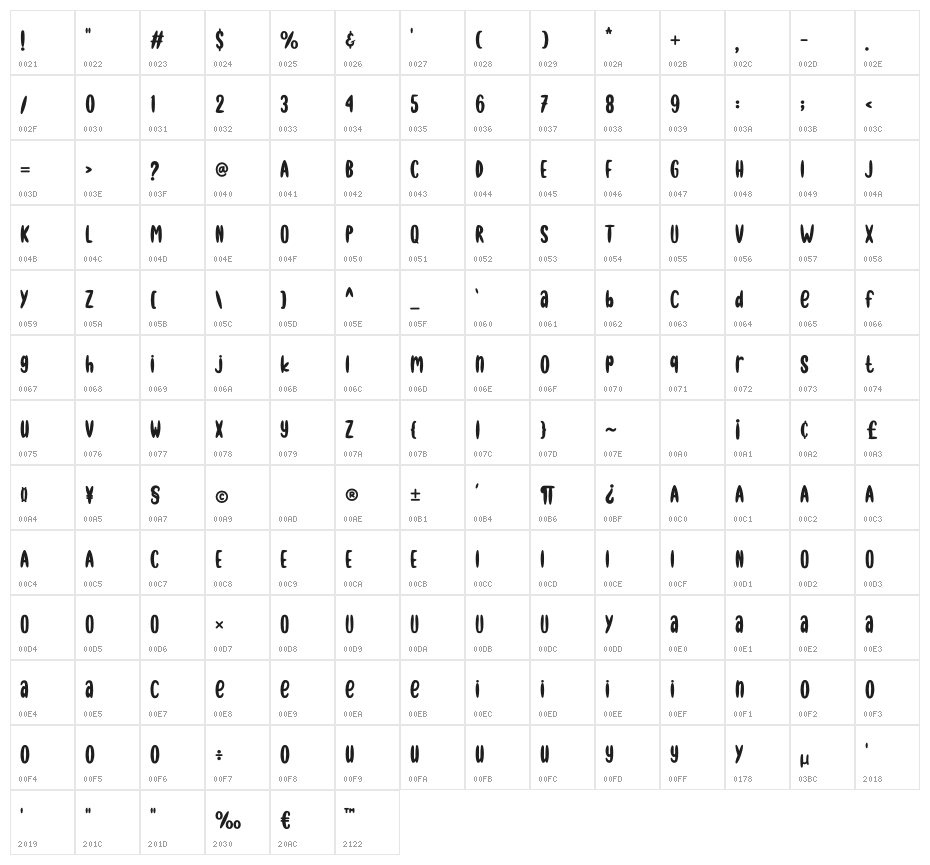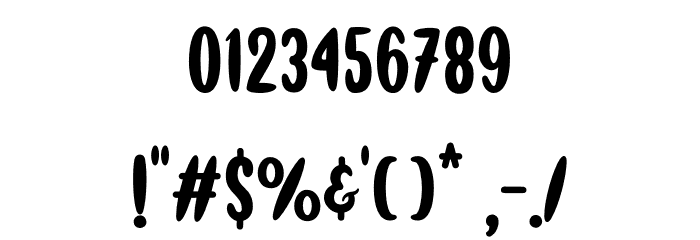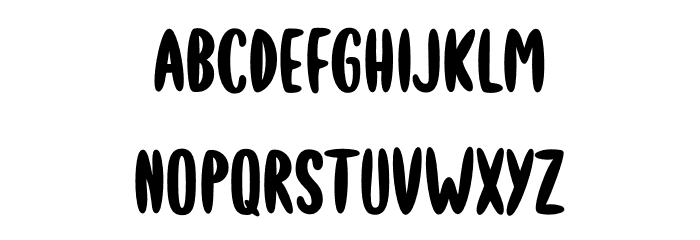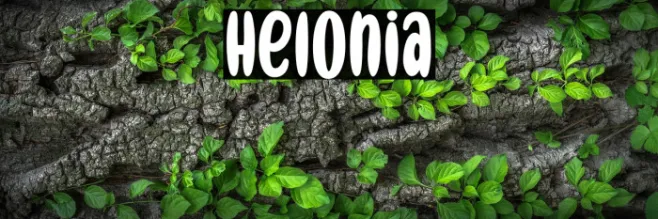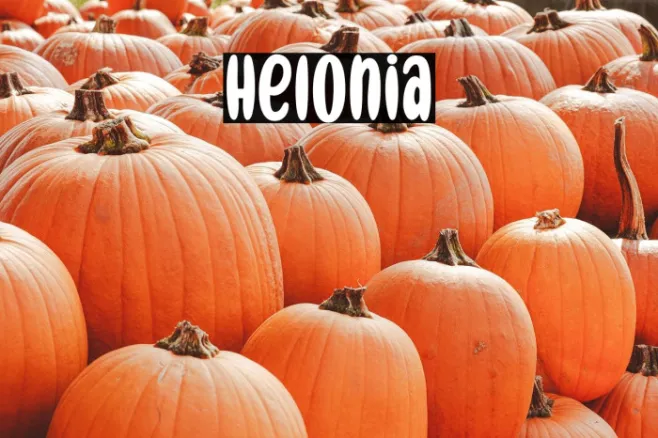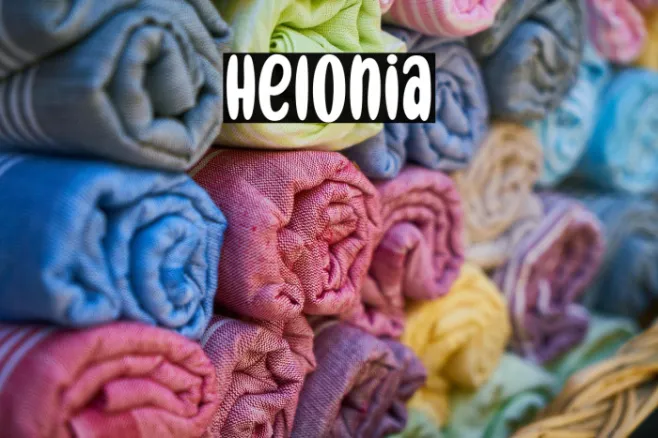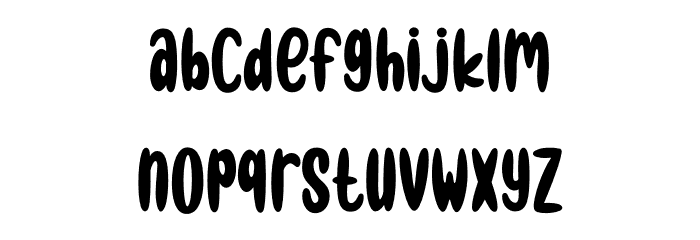
Helonia Font
Helonia Description
A playful, rounded handwritten font with a casual and friendly appearance.
| Overall Style | Casual, Friendly |
| Use Case | Headlines, Informal text, Branding |
| Proposed Projects | Greeting cards, children's books, casual branding. |